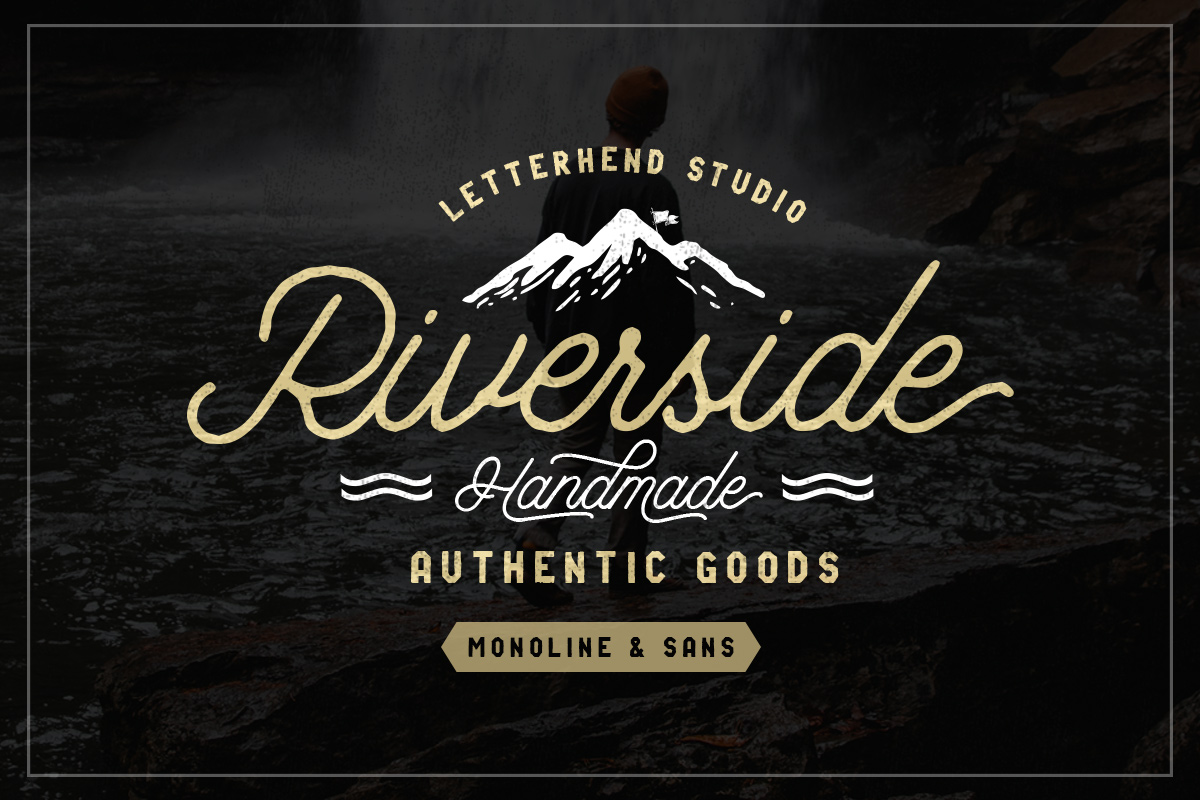
Riverside Font
Riverside Font is perfect for outdoor adventure branding, nature tourism websites, camping equipment packaging, waterfront restaurant menus, fishing lodge signage, kayak rental materials, riverside cabin retreats, outdoor gear catalogs, environmental conservation campaigns, and scenic photography portfolios. This natural typeface brings refreshing authenticity to hiking trail guides, water sports companies, lakeside resort branding, outdoor education programs, and wilderness adventure tour operators.
Riverside Font is exciting because it captures the serene beauty and natural flow of waterside environments through its organically inspired letterforms. The font features gently flowing characters with subtle curves and natural rhythm that evoke the peaceful movement of river currents and the tranquil atmosphere of waterfront settings. Its distinctive design philosophy incorporates smooth transitions and harmonious spacing that create a sense of calm movement and natural balance. The font's flowing elegance and outdoor authenticity make it perfect for brands seeking to communicate connection with nature, peaceful adventure, and sustainable outdoor living experiences.
The Riverside Font family includes various natural styles: Flow, Current, Rapids, Calm, Light, Regular, Bold, Script, Brush, Textured, Outline, and Seasonal variants. Each family member maintains the core water-inspired DNA while offering different natural expressions for diverse outdoor design applications. The comprehensive font collection ensures consistent nature-based branding across seasonal campaigns, outdoor equipment lines, and environmental awareness projects.
Riverside Font Free Download provides designers with an exceptional tool for creating authentic and environmentally conscious visual communications. This remarkable typeface seamlessly blends natural aesthetics with contemporary functionality, making it ideal for both digital applications and eco-friendly print materials. The font's carefully crafted flowing details and natural rhythm create memorable visual experiences that resonate with audiences seeking genuine connections to outdoor adventure and natural beauty.
Whether you're developing outdoor recreation branding, designing nature tourism materials, creating waterfront property marketing, or crafting environmental awareness campaigns, Riverside Font delivers outstanding natural appeal and outdoor authenticity. The font's distinctive flowing personality excels in outdoor logos, adventure packaging, environmental signage, and nature-focused applications where organic beauty and peaceful adventure spirit are essential.